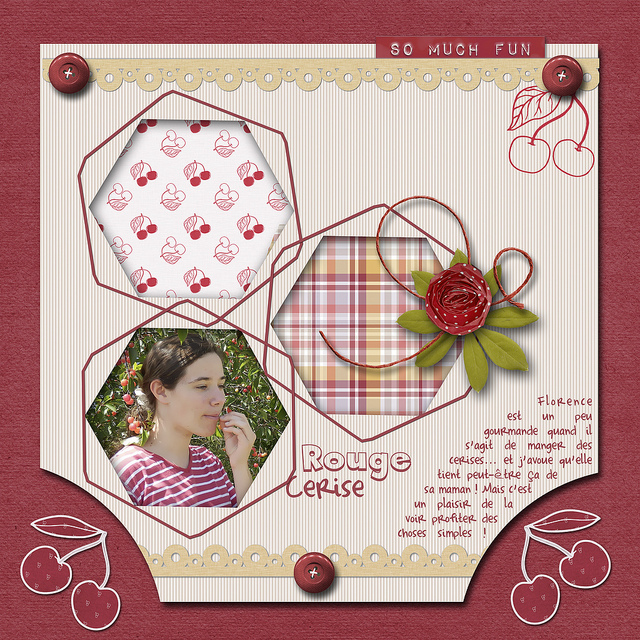
29. Complete in Him
This font seems to be another clean and easy to read handwriting font. I like the hooks on some of the letters, similar to a times new roman font. (link)